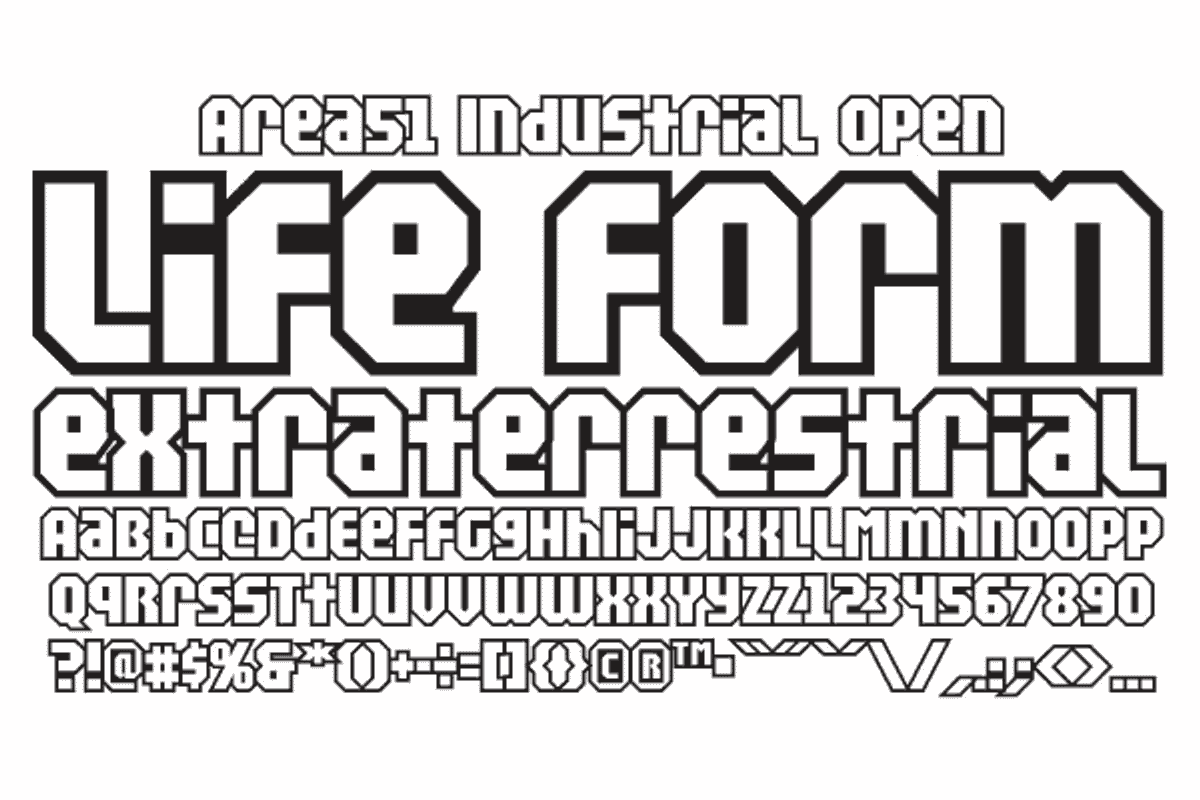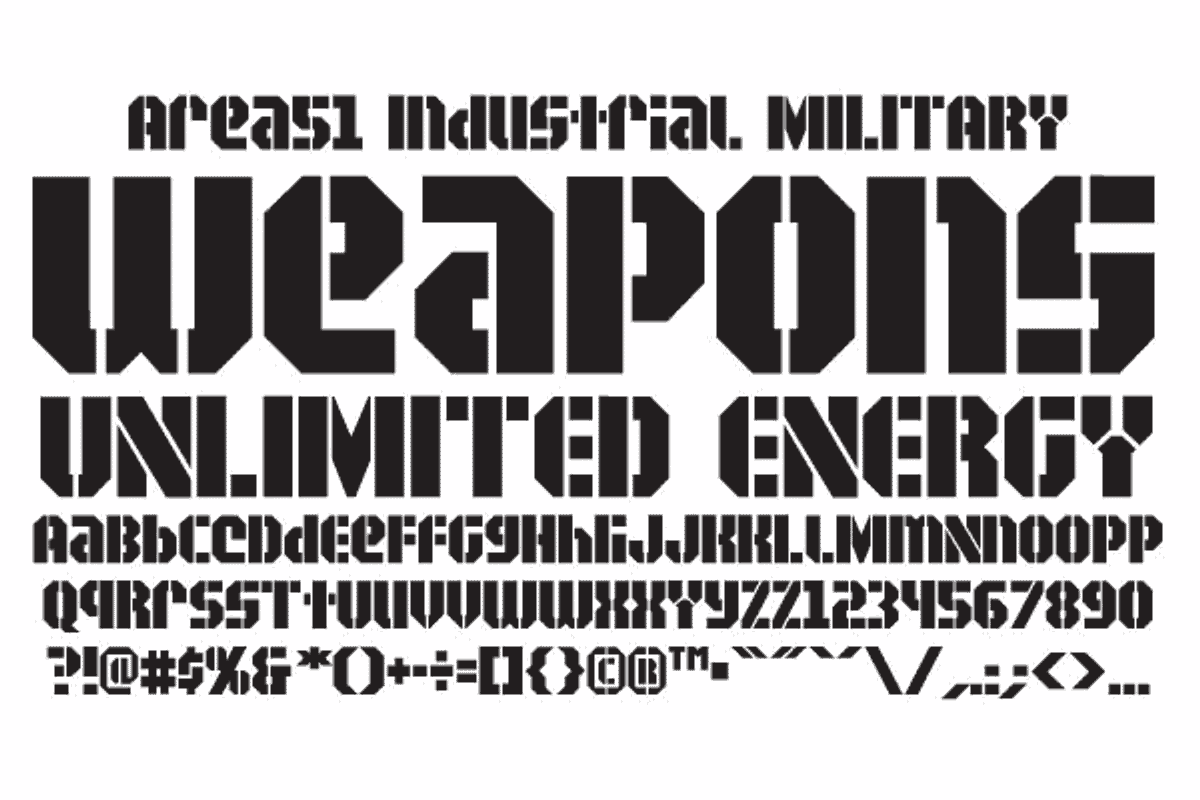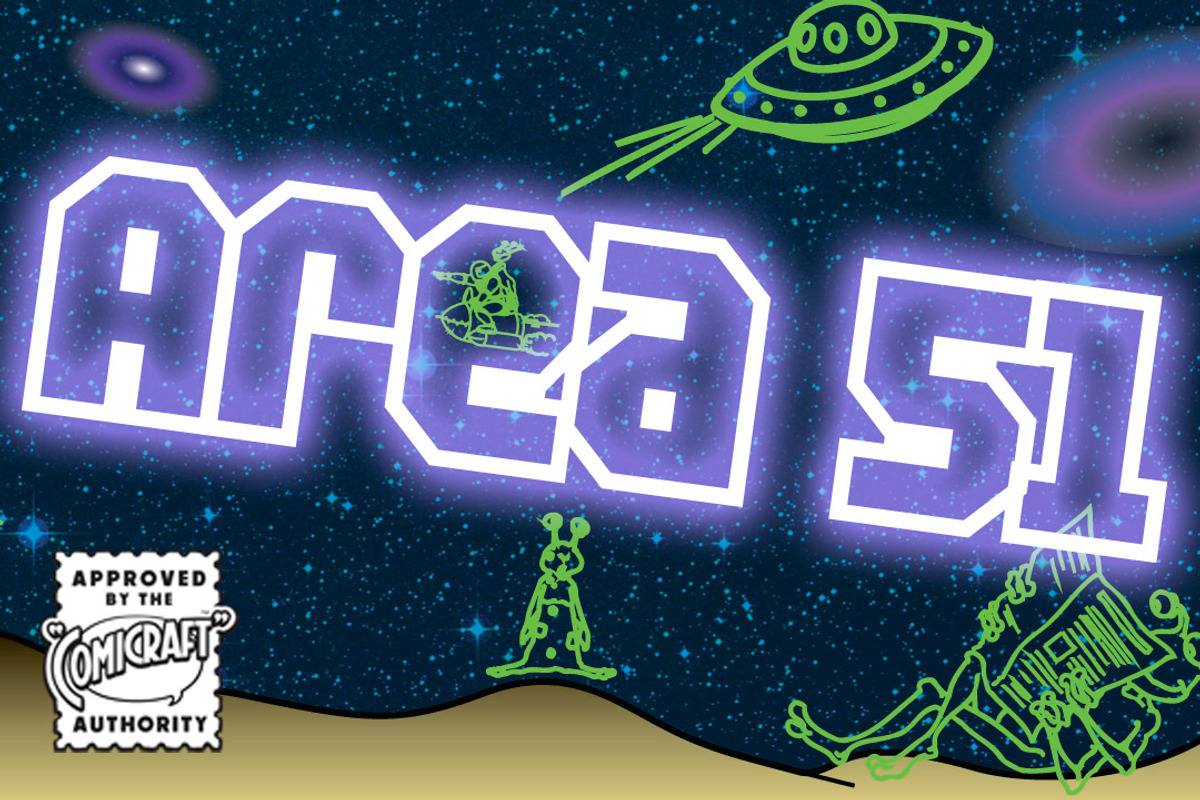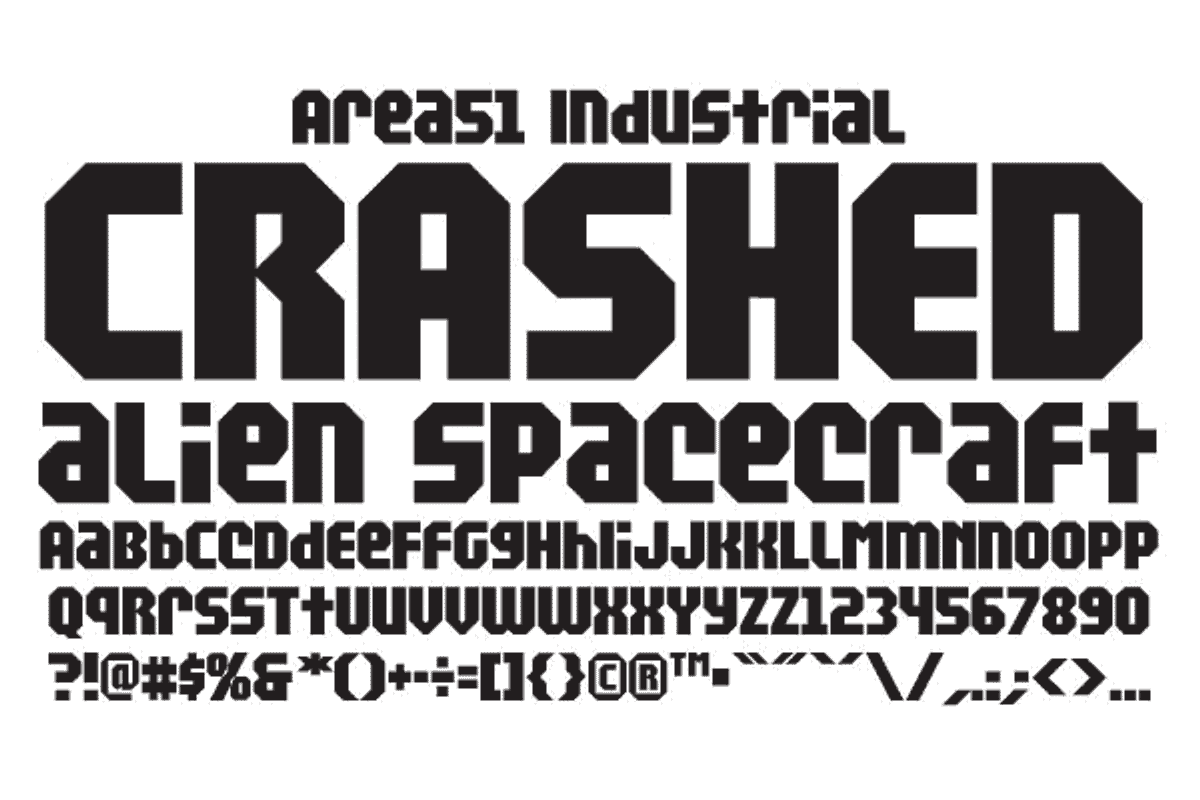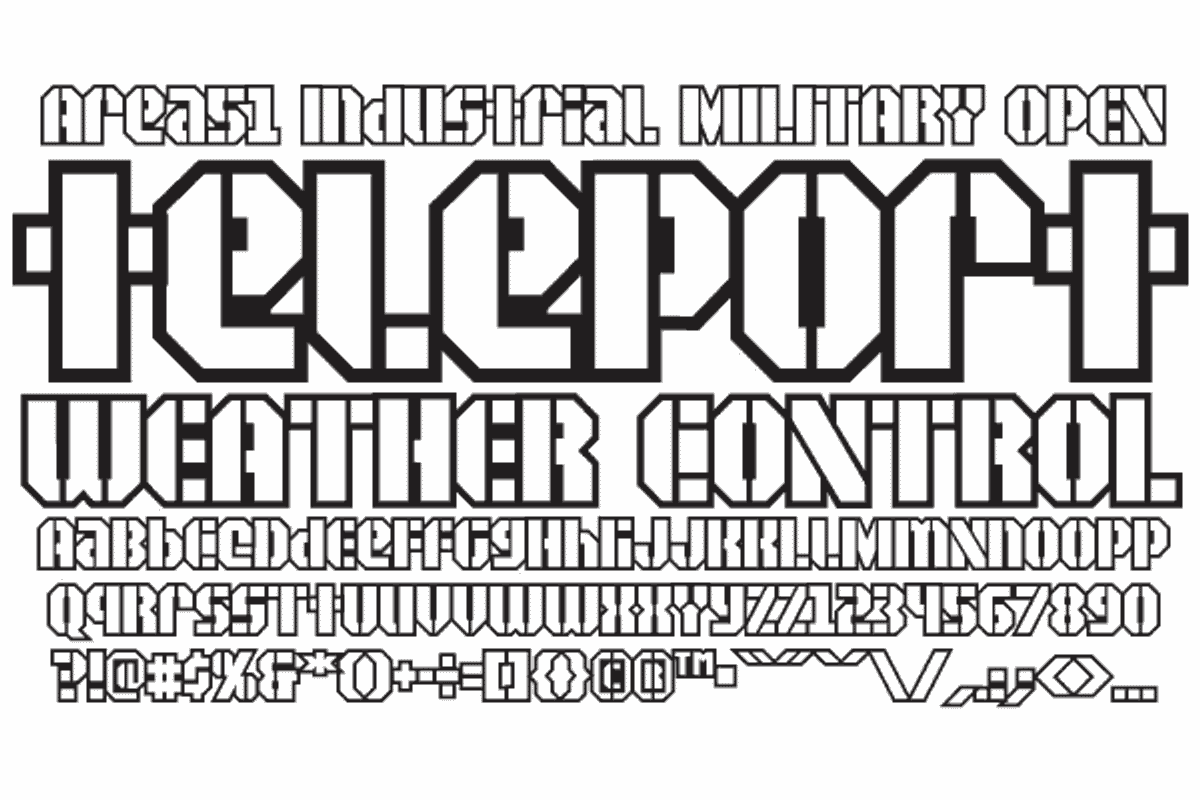
Area 51 - industrial stencil fonts
Area 51 - industrial stencil fonts by Comicraft Fonts is a font selected for branding, posters, packaging, typography.
- The characters in this font are the key players in a global conspiracy reaching down into the lives of every man, woman and child on the pla
Area 51 - industrial stencil fonts by Comicraft Fonts fits naturally into Branding, posters, packaging, typography.